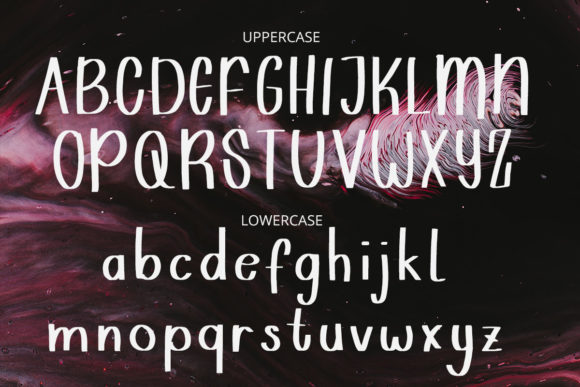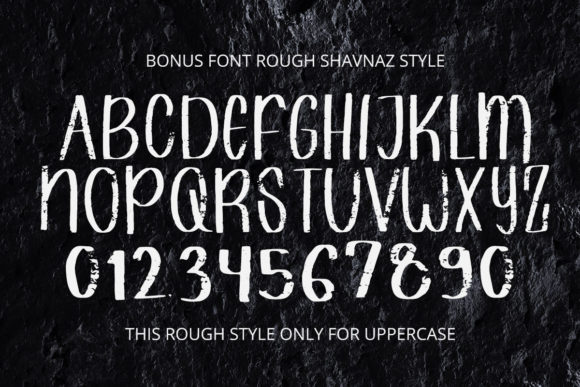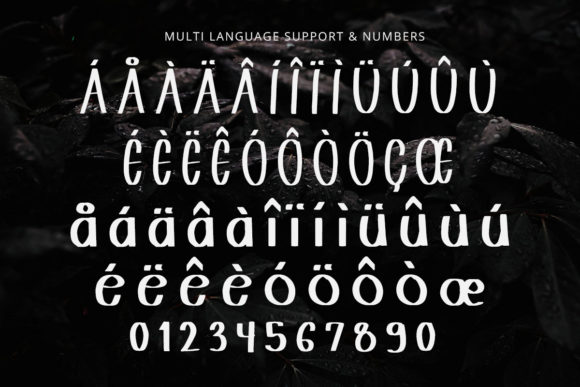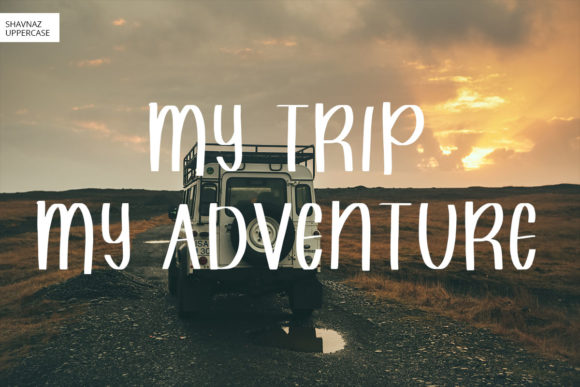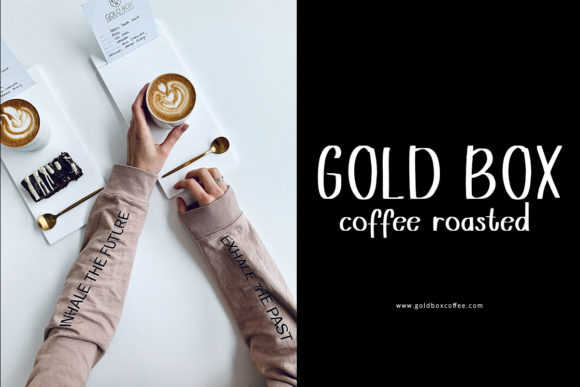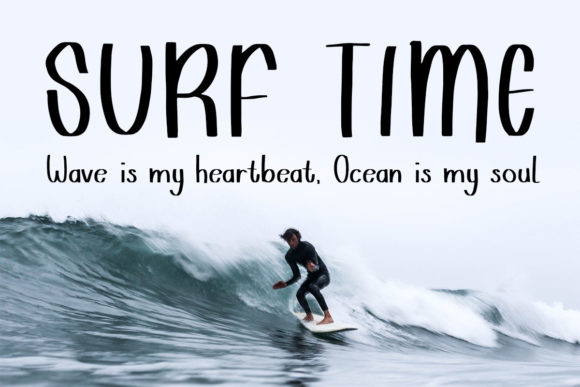
Introduction to Shavnaz Font
Shavnaz is an elegant, yet casual sans serif font that delivers an extraordinart font experience.
Get inspired by its unique charm .
Key Features of Shavnaz Font
Why Choose Shavnaz Font?
Shavnaz Font offers exceptional quality and versatility, making it a valuable addition to your design toolkit. Whether you’re creating for personal projects or commercial use, Shavnaz Font delivers professional results.